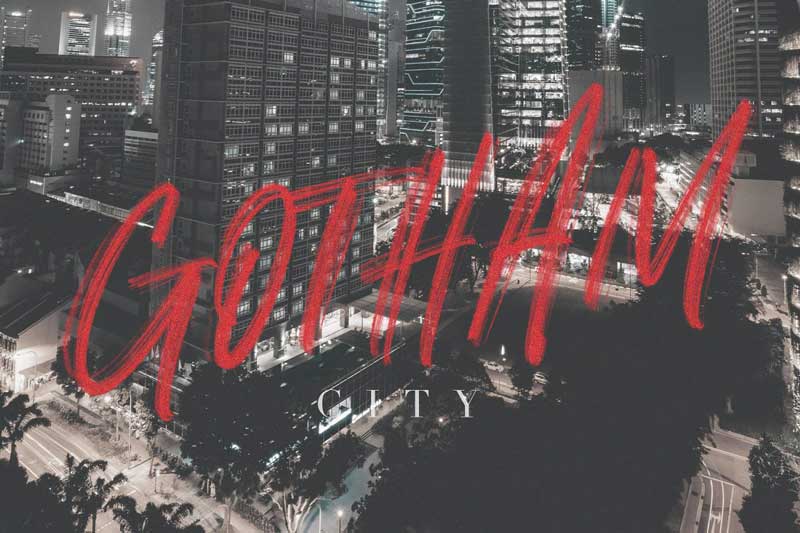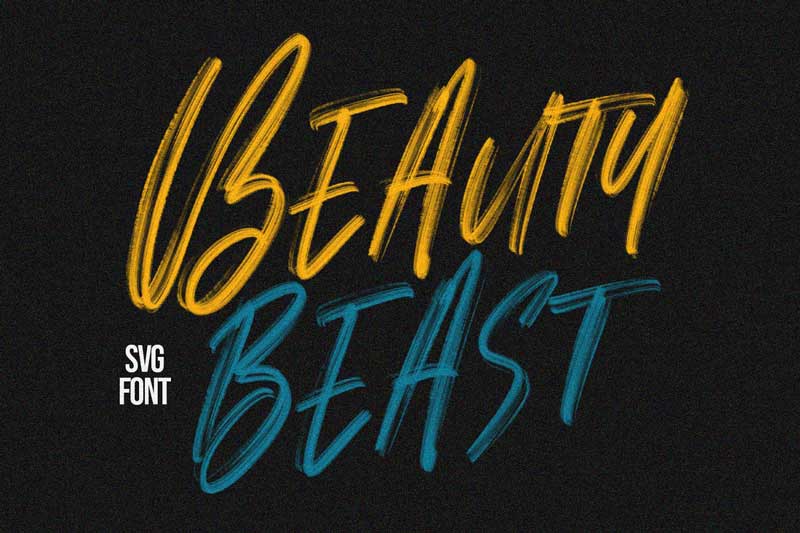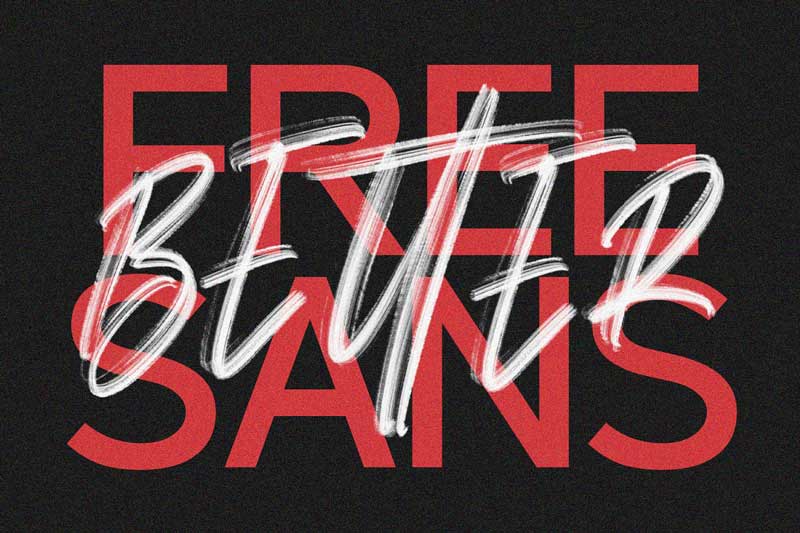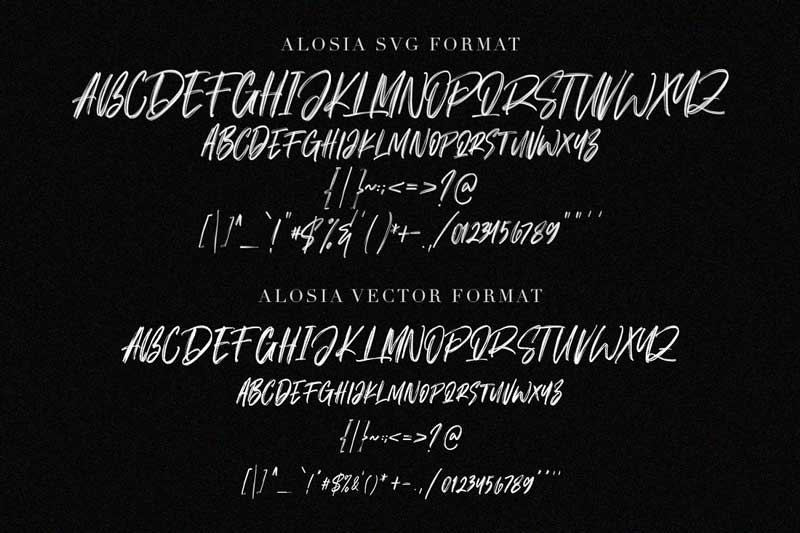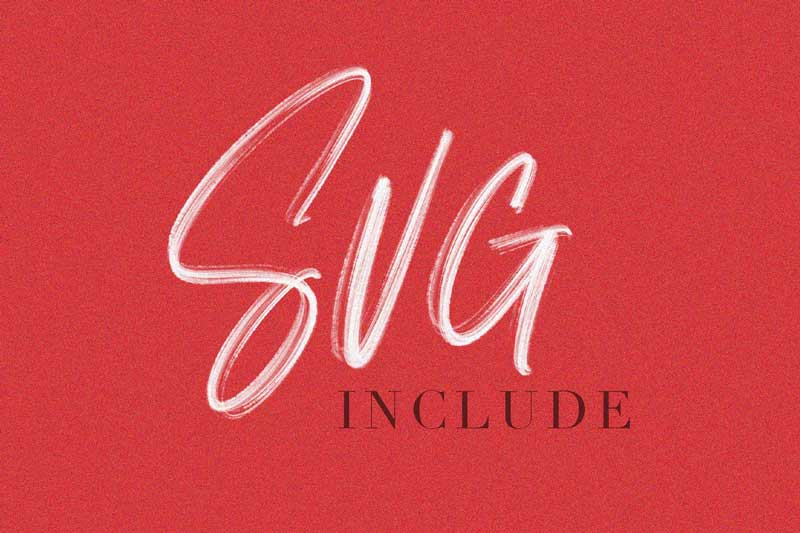
Give your designs an authentic brush handcrafted feel. “Alosia” is perfectly suited to signature, stationery, logo, typography quotes, magazine or book cover, website header, flyer, clothing, branding, packaging design and more.